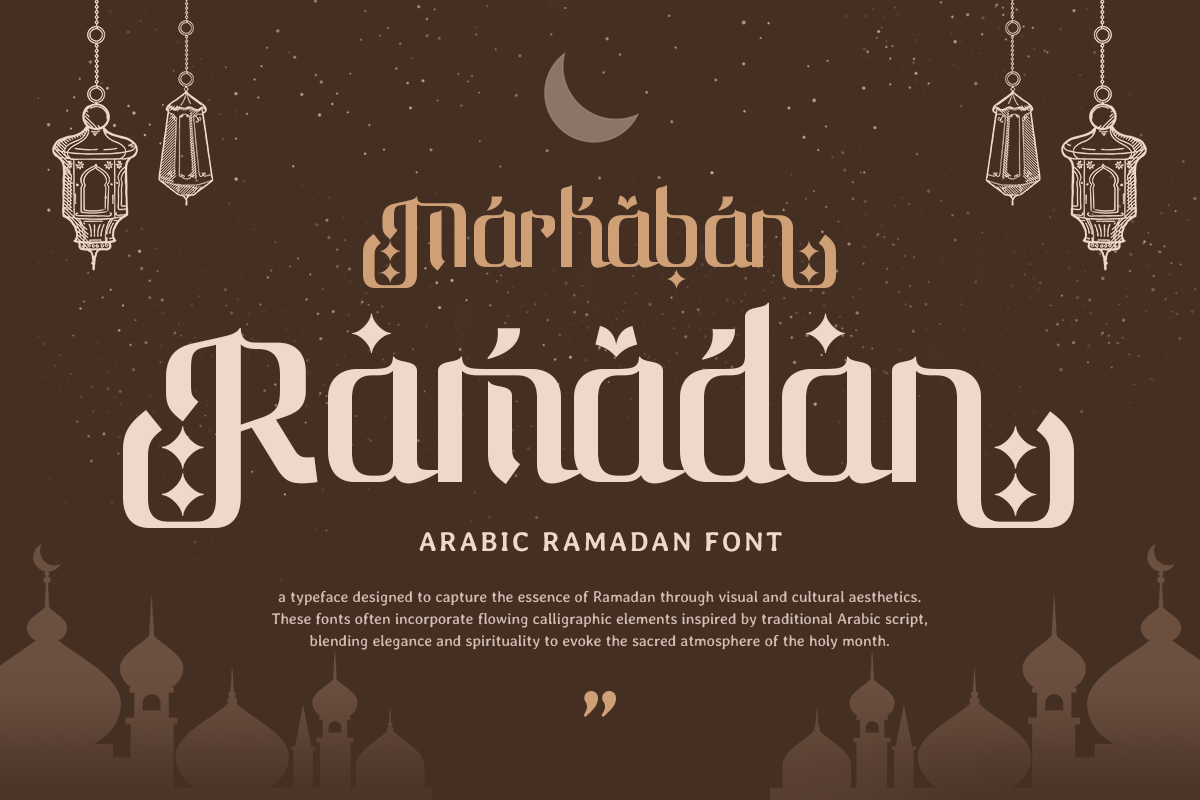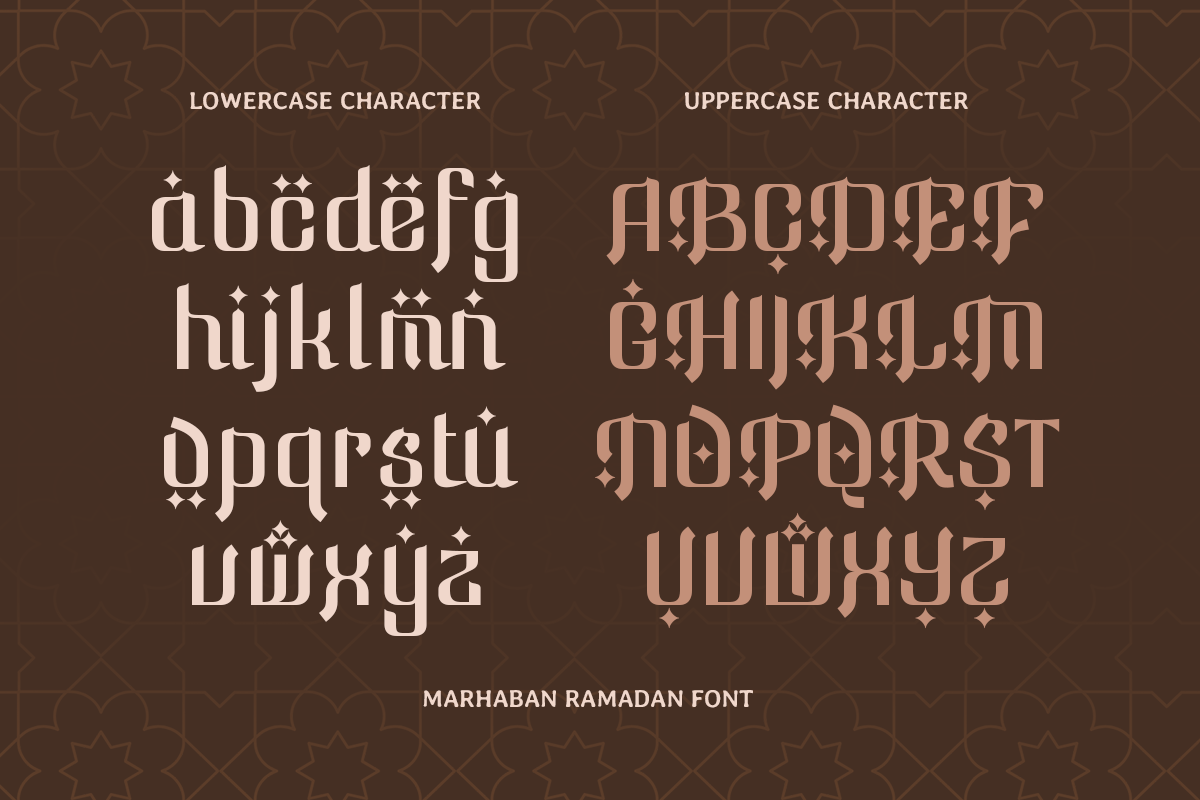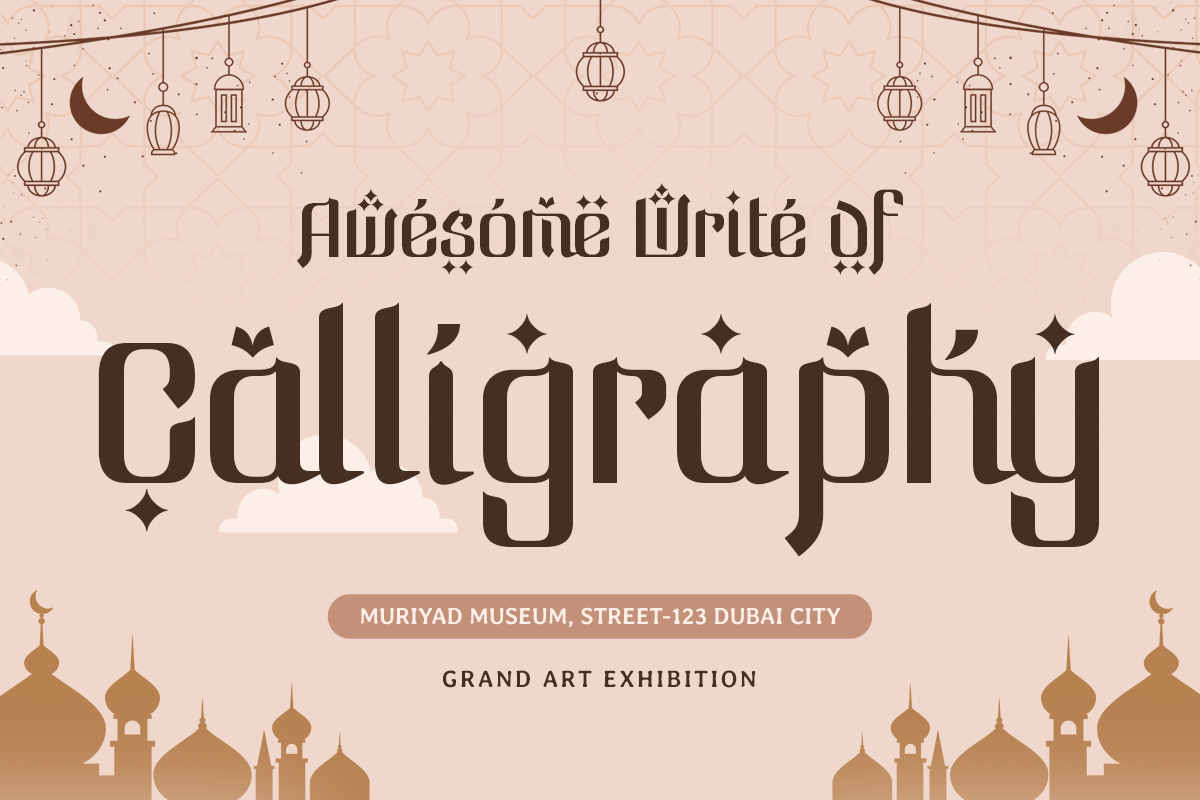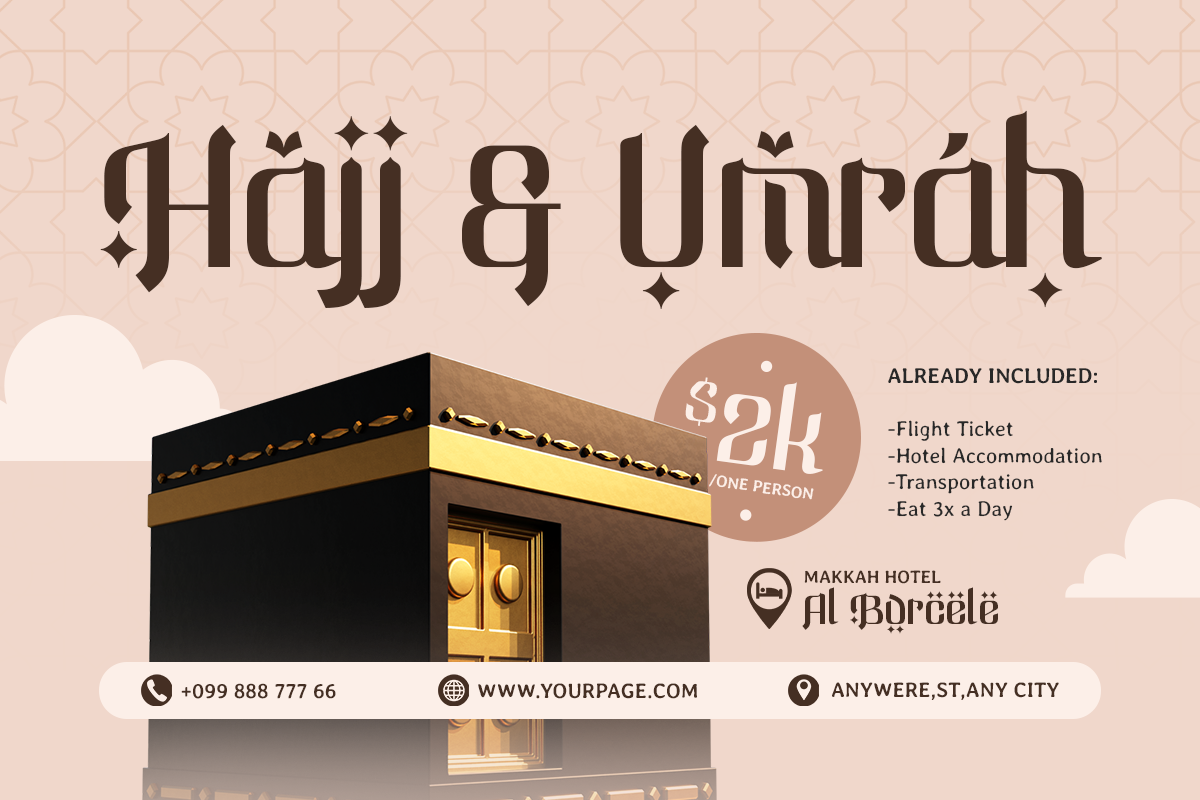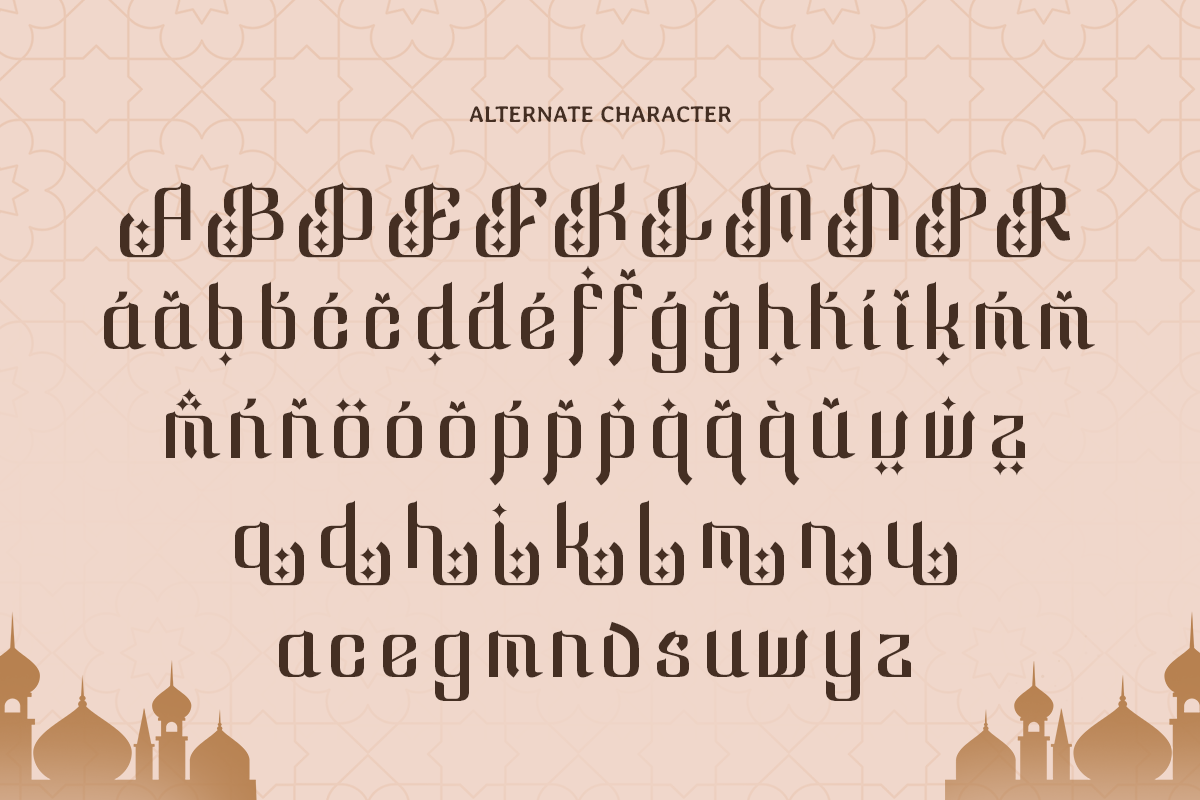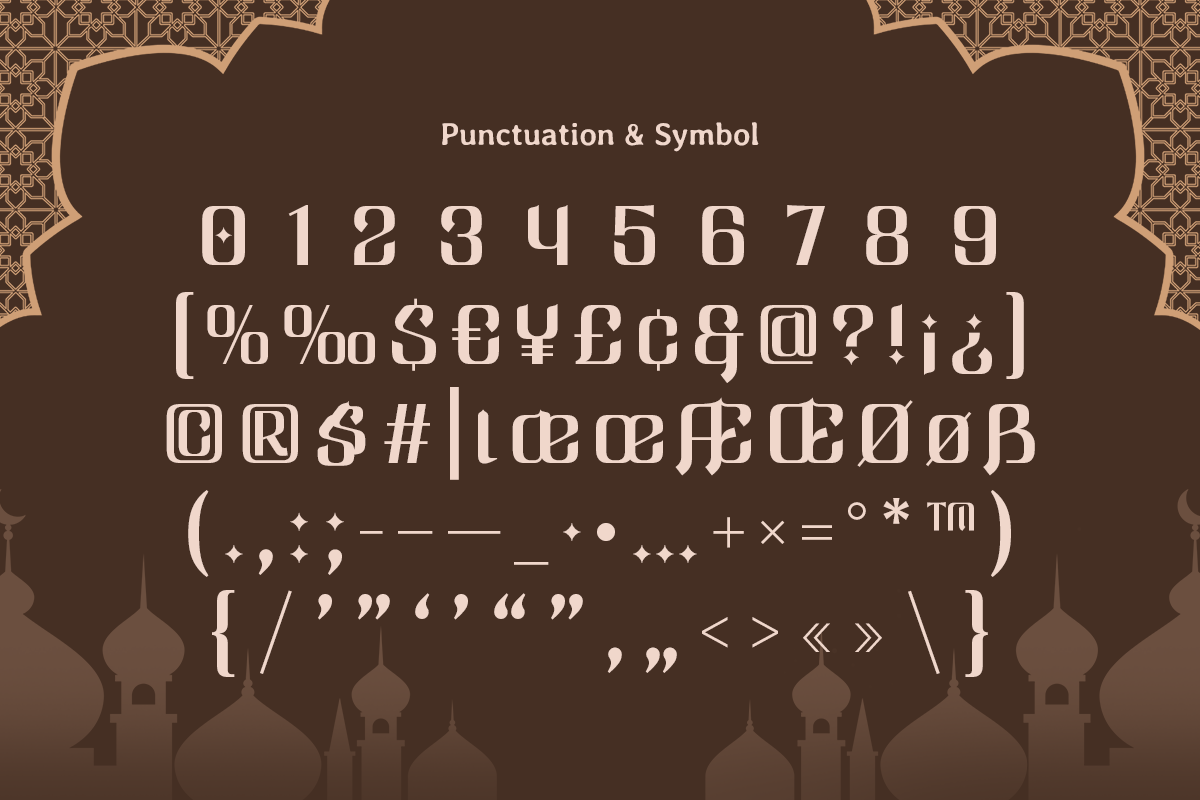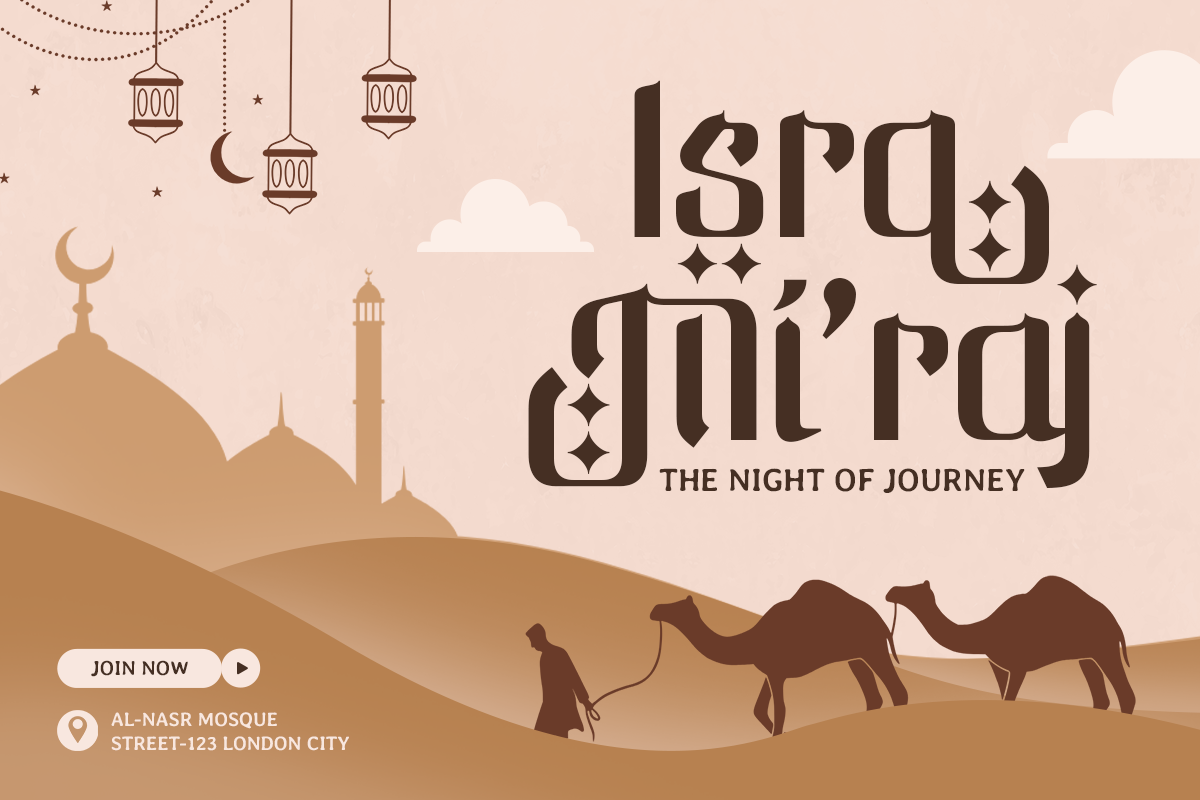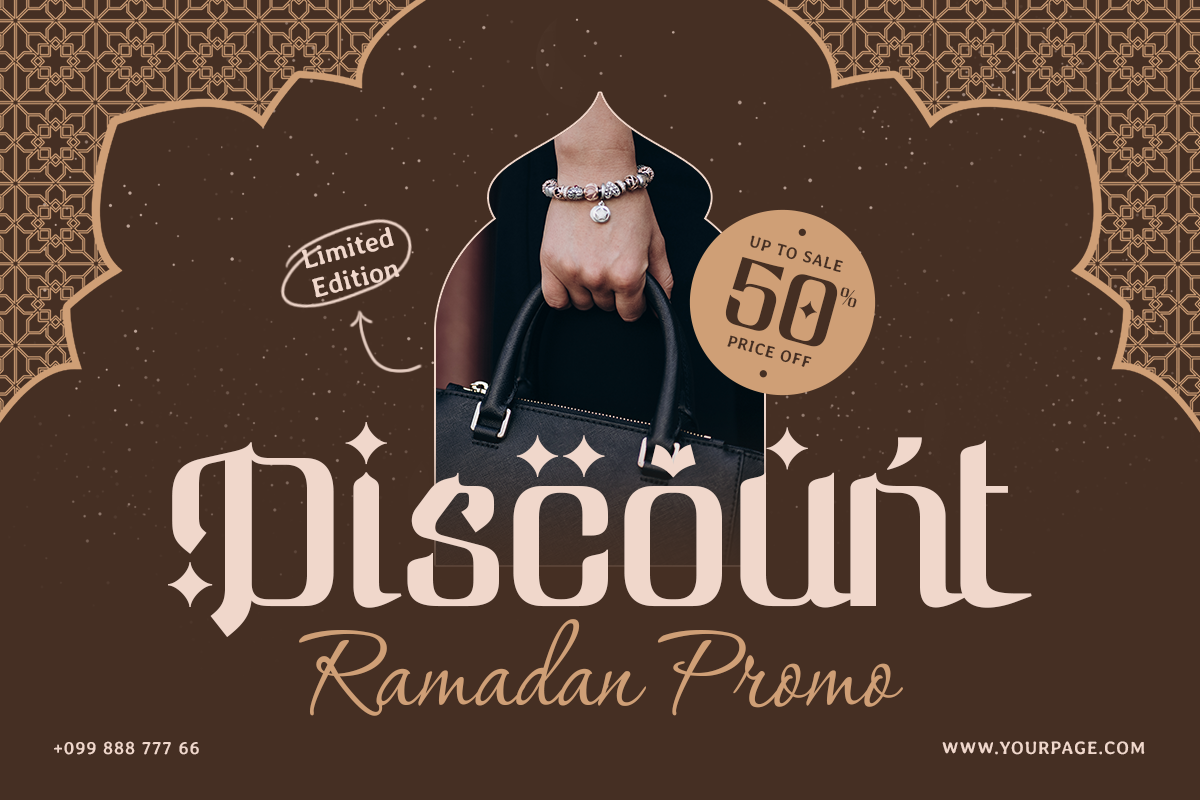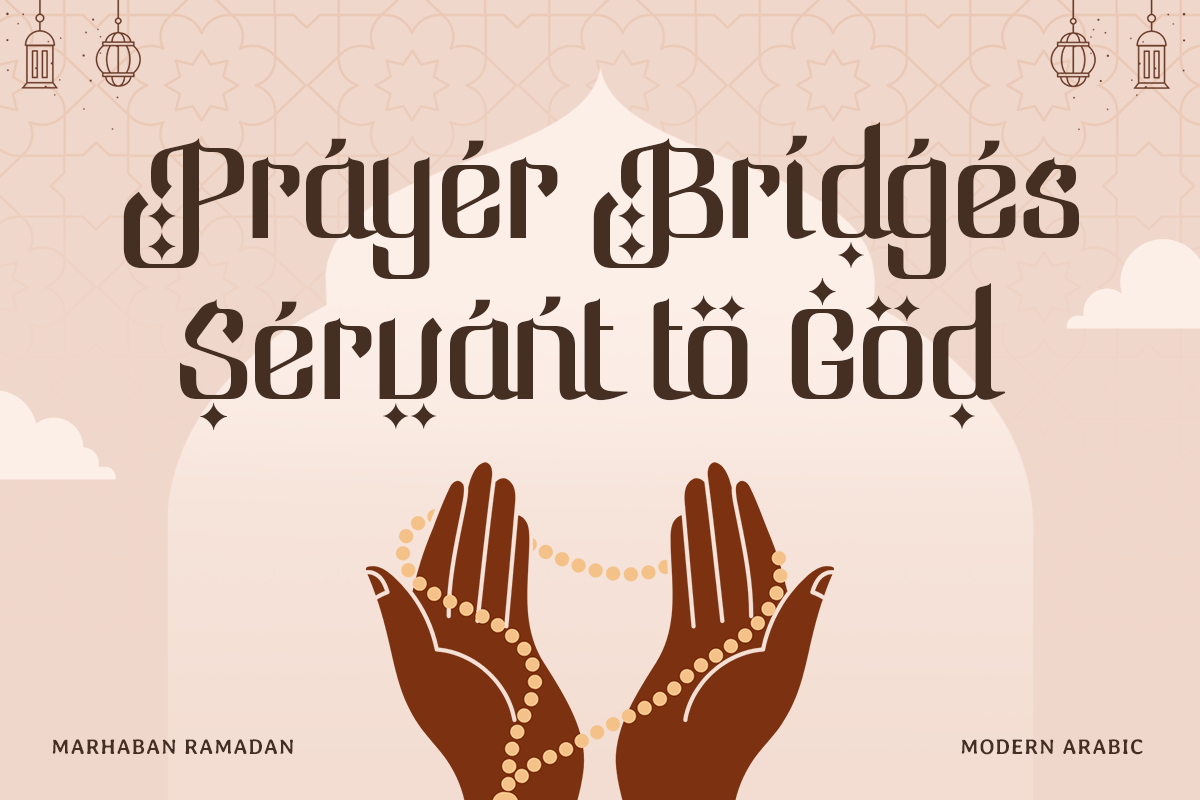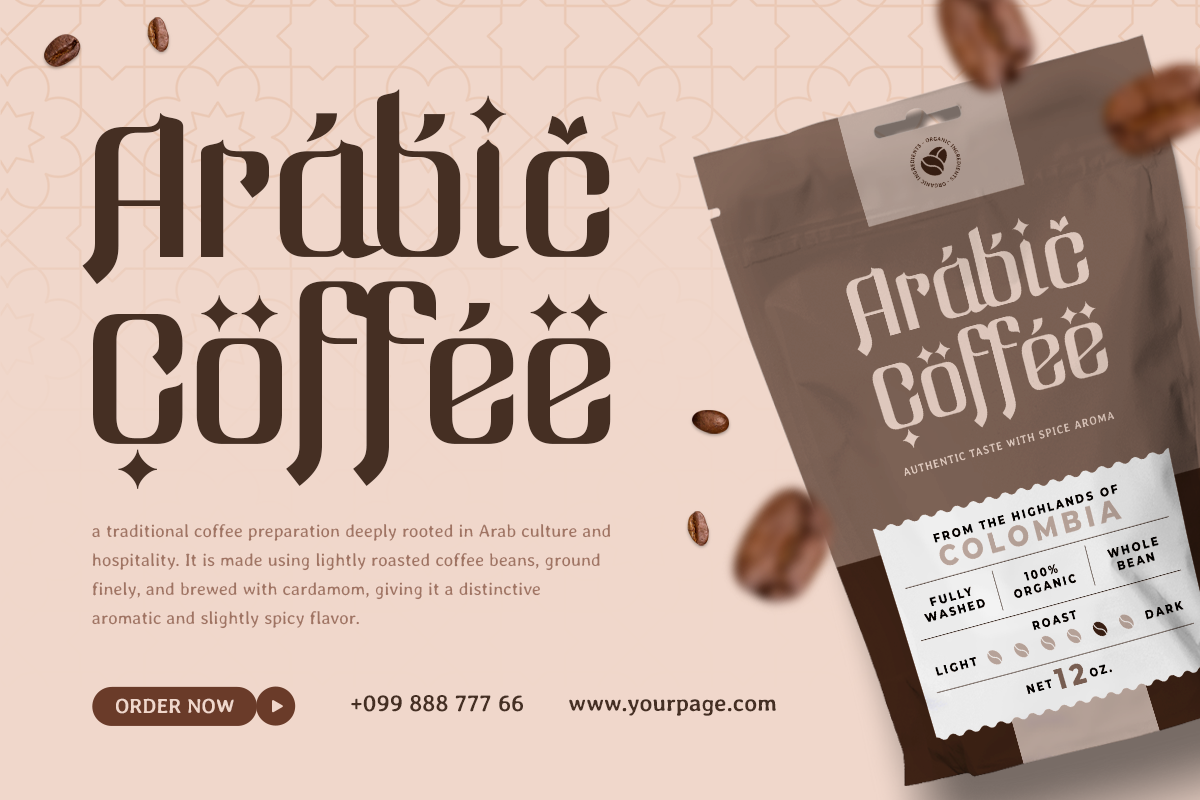
Marhaban Ramadan - Arabic Ramadan Font
Marhaban Ramadan is a beautifully crafted Arabic font designed to embody the spirit and warmth of the Ramadan season. Its graceful curves and modern style make it ideal for greeting cards, invitations, Islamic branding, and packaging. With its unique blend of tradition and contemporary design, this font captures the essence of Ramadan while enhancing your creative projects.
Inspired by the cultural significance of Ramadan, Marhaban Ramadan ensures your designs carry a sense of festivity and spirituality. Whether used for digital banners, social media posts, or elegant print materials, this font conveys messages of peace and celebration with sophistication and clarity.
Create meaningful and visually striking designs with Marhaban Ramadan, a font that seamlessly combines traditional Arabic aesthetics with modern versatility. It’s the perfect choice for those who want to deliver messages that resonate deeply during this special time of the year.
Marhaban Ramadan Arabic Ramadan Font Features:
- Elegant Arabic Typography Design
- Punctuation, Numbers, and Symbols
- Uppercase and Lowercase
- Opentype Features